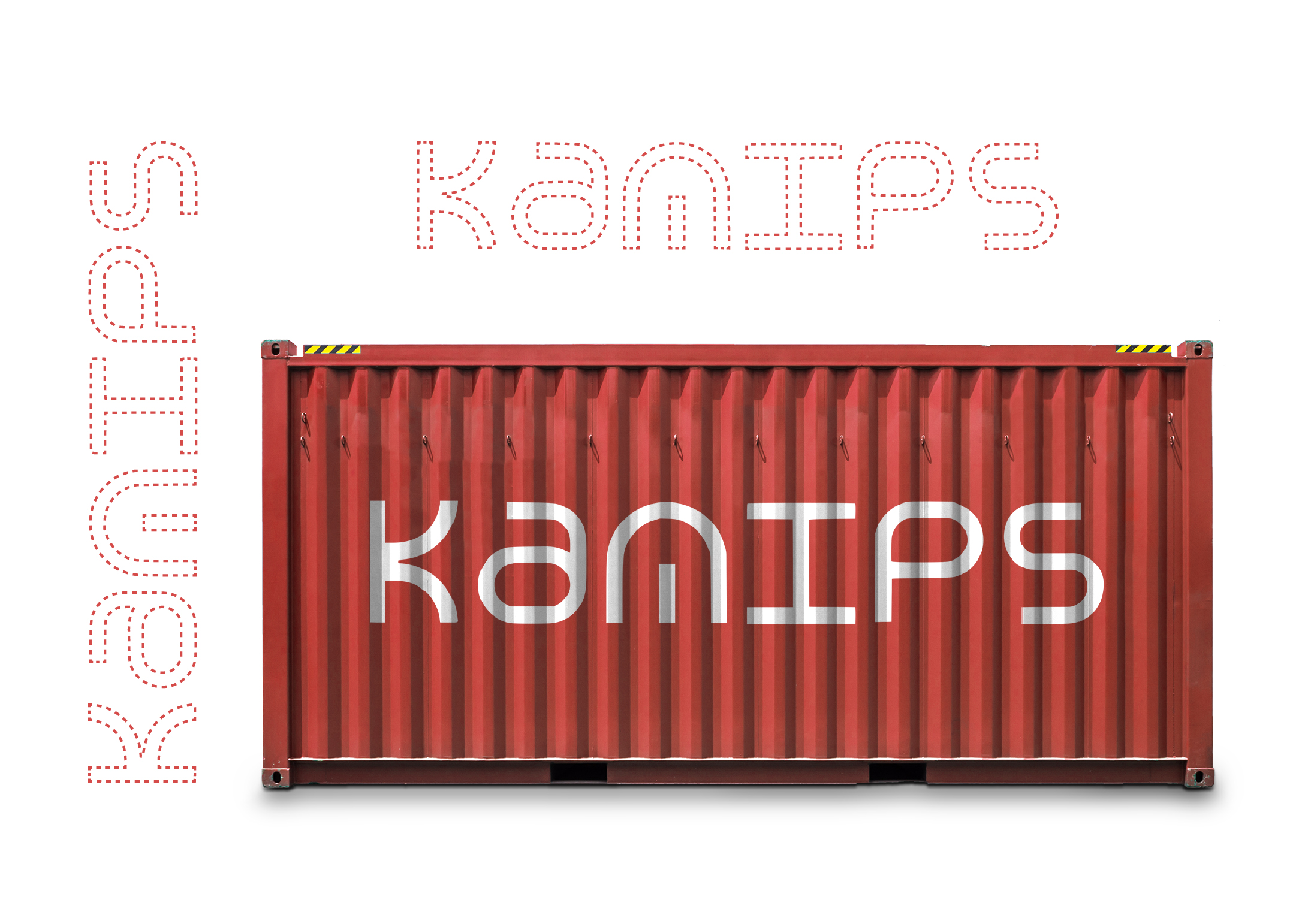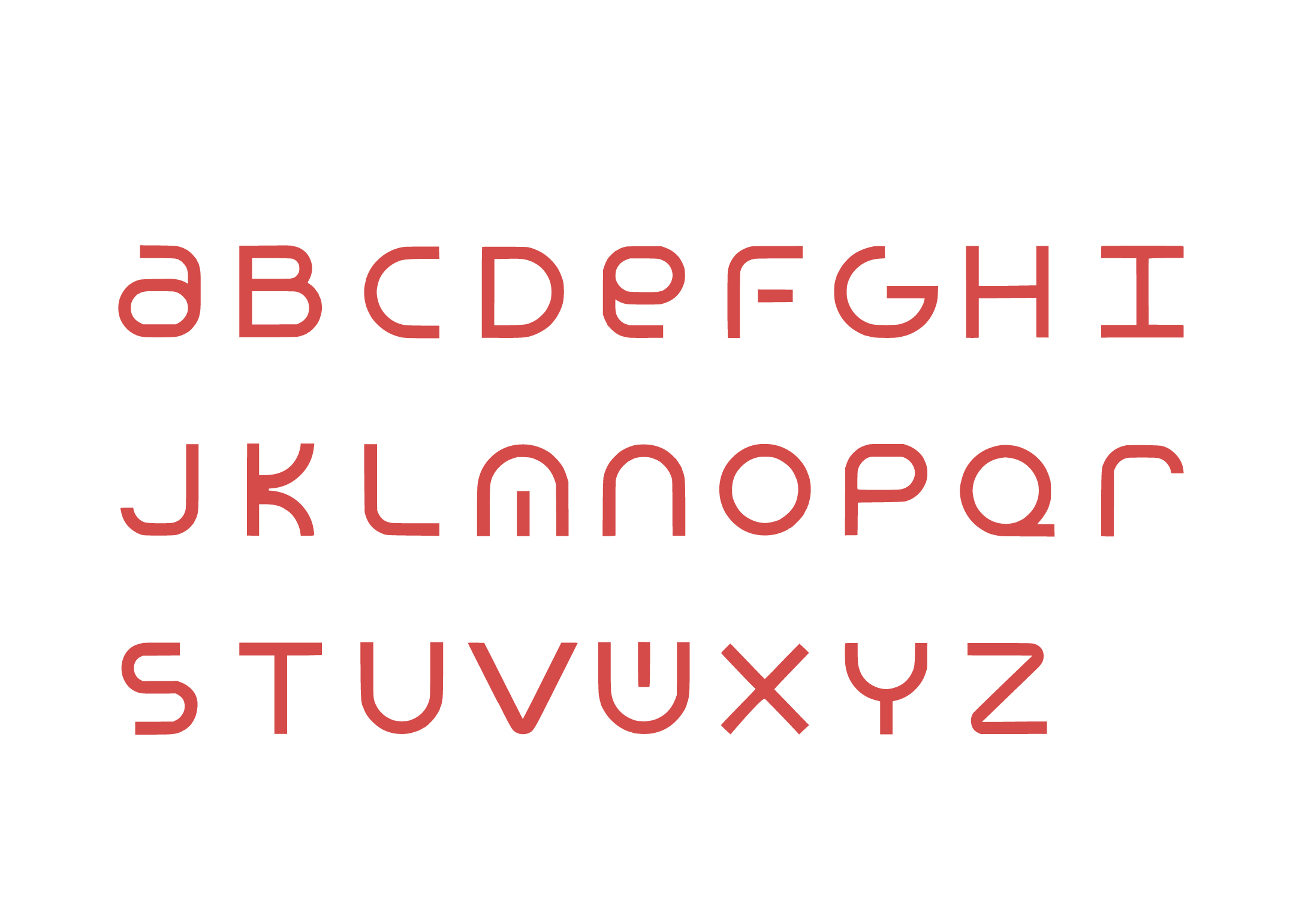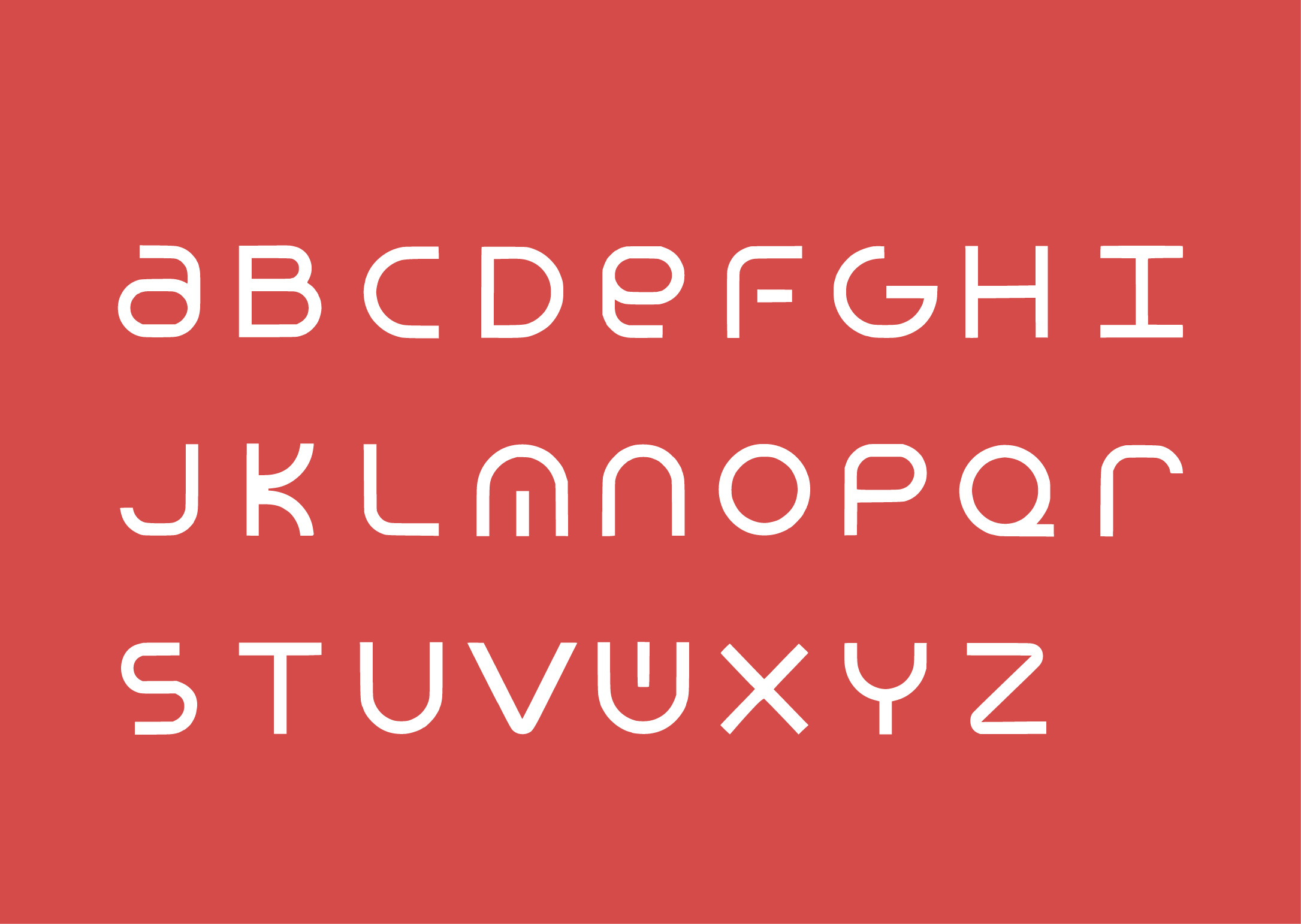
Kamips Font
Kamips Sans Serif Font
This is an open, modern, sans serif typeface. Every letter has a unique and beautiful touch. It easily cooperates together For magazines, Movies, or Book Titles. For Photography, Wedding Invitation, Restaurant Menu or T-shirt Design. For Flyers, Banner Ads, web, and printing.